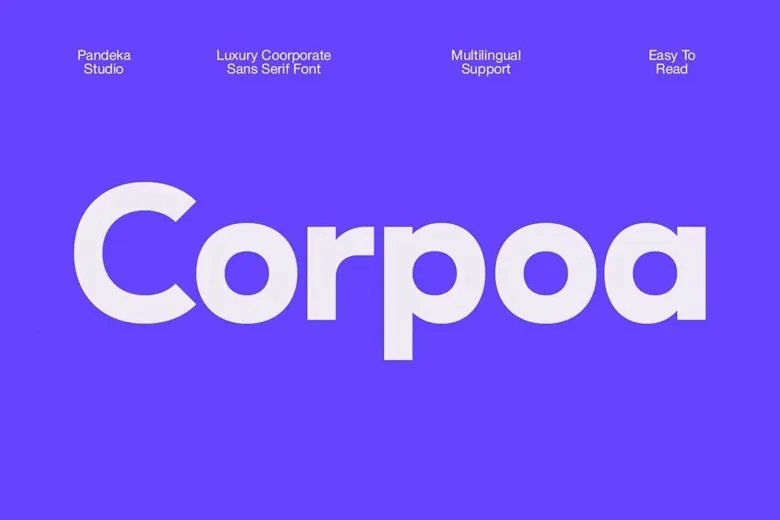
Corpoa Font
Corpoa is a modern rounded sans serif typeface that combines the bold nature with friendly and approachable voice. The geometric form and uses of soft terminals make it adjustable in appearance to both the print and digital environment. Corpoa provides a flashy transparency between readability and character making it fit perfectly in branding, editorial typography, posters, marketing and start-up, or corporate identity.
Not aggressive, but bold at the same time, modern, but warm, will be well suited to companies, or designers, who wish to make a sharp, yet clean statement with a humanistic touch.
Corpoa Sans Serif Font